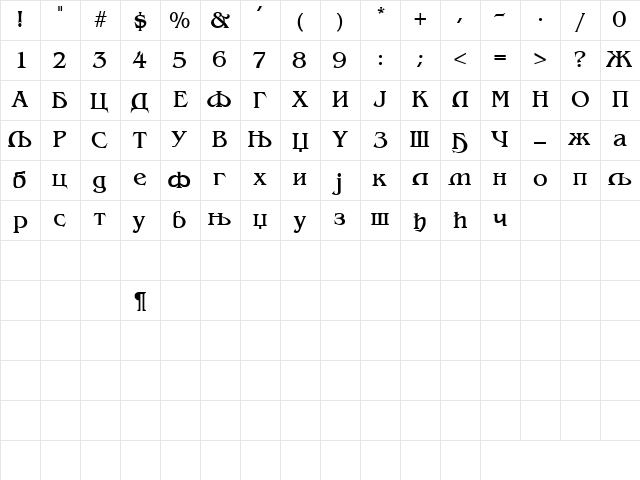
C_Bangkok Normal Regular
Design Context for C_Bangkok Normal
C_Bangkok Normal is a composed and adaptable typeface that performs quietly and consistently across a wide range of design contexts.
Pro Tip: Use C_Bangkok Normal in both headline and body roles to test its range before committing to a single application.